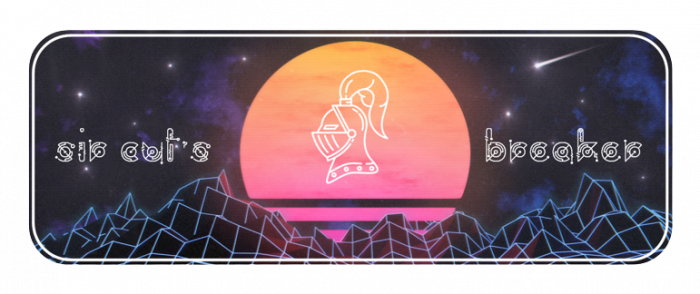
the font is loosely based off of this font by Mark Poon
I particularly love your e, g, k, and s. :)
This is so unusal, very creative and exciting!
Very creative electronic circuit wizardry.
Very unique fontstruction!
A strong entry. Judges should prepare lots of aspirin for their upcoming headaches.
Felt like it was high time this font got a more worthy sample